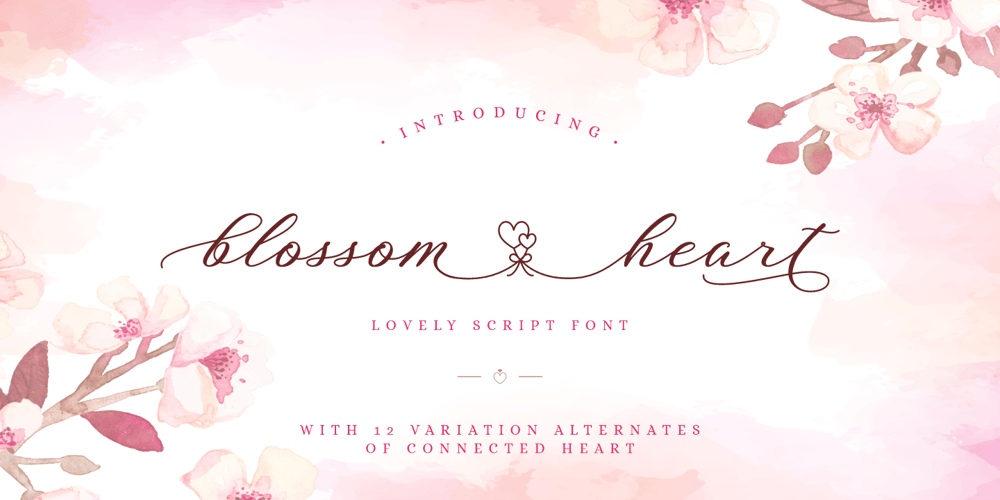
Blossom Heart Font Family was designed by Putra Novembria Candra Kusuma and published by Putracetol. Blossom Heart contains 1 styles and family package options. Introducing a beautiful lovely script font called “Blossom Heart”, a lovely font with 12 variation alternates of connected heart. Special fonts for valentine and wedding events.Come with open type feature with a lot of alternates and end swash, its help you to make great lettering.Gayesha best uses for valentine, wedding, invitation, heading, cover, poster, logos, quotes, product packaging, header, merchandise, social media & greeting cards and many more.This font is also support multi language.